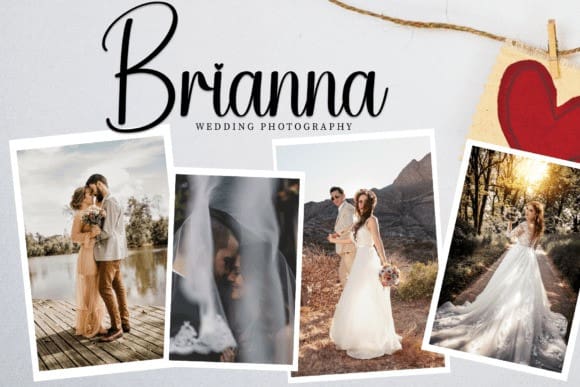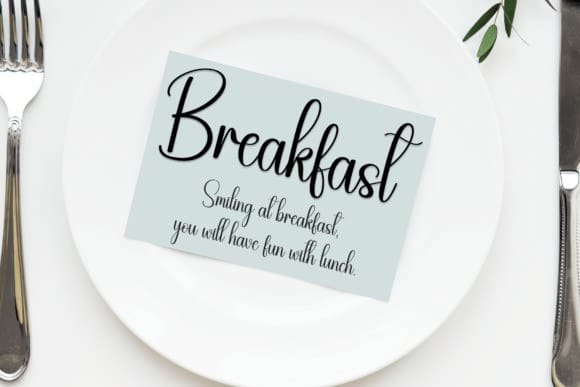
Gasstove Script Font
Gasstove Script Font is a sweet and friendly handwritten font. Fresh and cute, this font is ideal for writing wedding invitations, cards, or any other design that might need a fun touch!